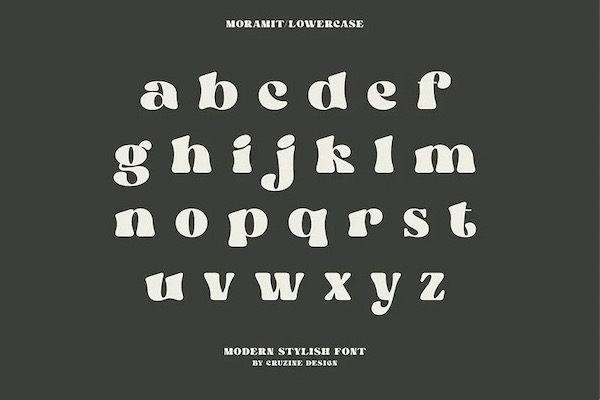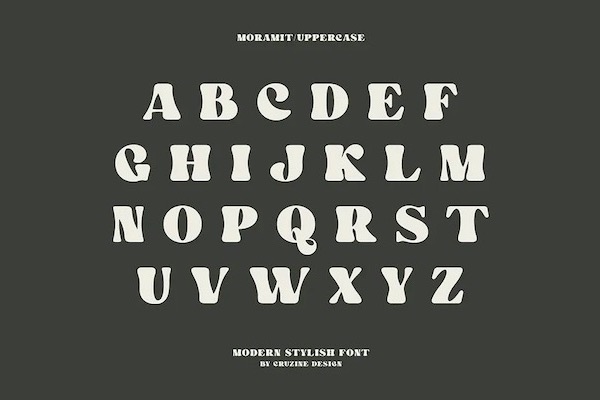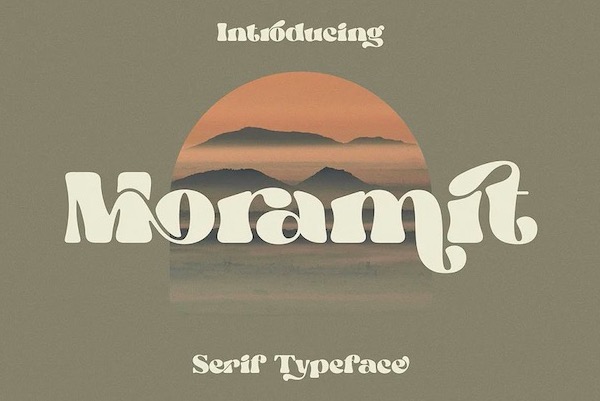
Moramit Font
Moramit is a classy Rounded serif font that was created and shared by Cruzine. It has a powerful, retro, and Trendy rounded & modern style serif font for your fancy designs. The elegant, fashionable, and classic style of Moramit font will be great for any branding project. A lot of alternates and ligatures will help you to create a unique and original logo design or website header! Enjoy 🙂